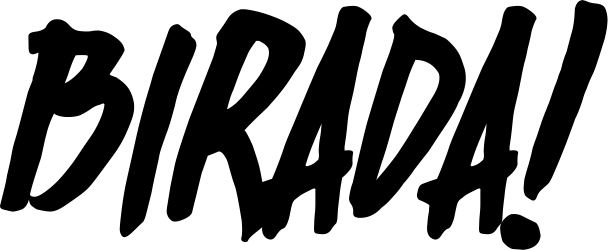
Alley Oop Font
This time we brought you another example of block font. Alley Oop is a heavy font with sharp edges and all the characters are bold which makes it perfect for logotypes, product packaging, posters, social media posts, etc…
Designed byAJ Paglia
This time we brought you another example of block font. Alley Oop is a heavy font with sharp edges and all the characters are bold which makes it perfect for logotypes, product packaging, posters, social media posts, etc.
All the alphabets come in uppercase and you don’t get all the characters. You can find so many serif block font in this category on Resource Boy.
mechanical type inspired by Providence College Friars logo